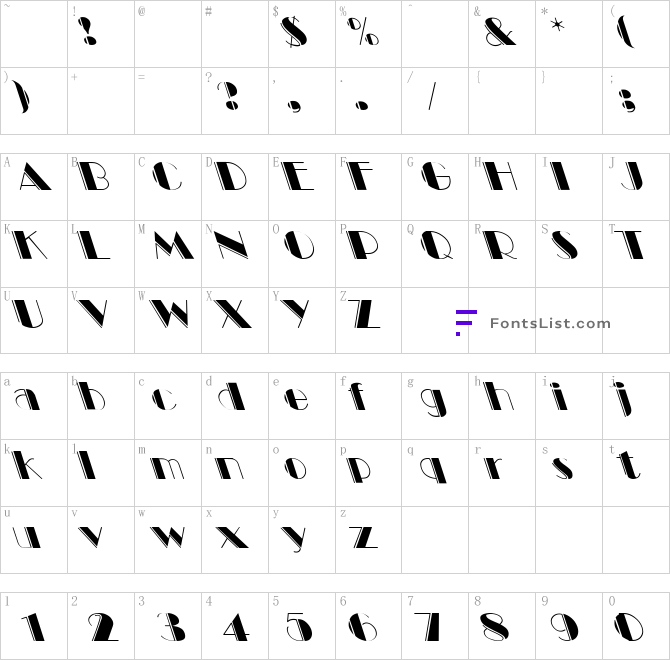
- Font Name:Ballet Engraved Lefty
Ballet-Engraved-Lefty.ttf is a very beautiful artistic font, Ballet-Engraved-Lefty.ttf is widely used in the design and printing of various books and pictures,Ballet-Engraved-Lefty.ttf has a strong visual impact,Ballet-Engraved-Lefty.ttf is a commonly used font in newspapers, magazines and books, and is used in posters, e-commerce Poster design, store design, logo design, font design and other fields.Ballet-Engraved-Lefty.